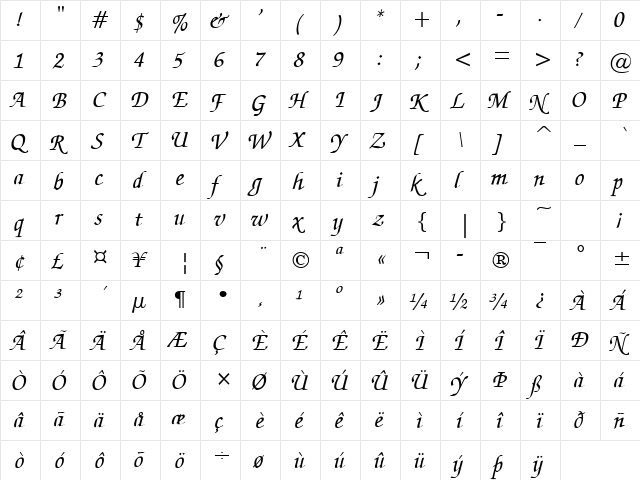
Exchequer Script Regular Font Preview
Exchequer Script Regular
Design Context for Exchequer Script Typeface
Exchequer Script flows with the natural rhythm of handwritten lettering, making it ideal for designs that call for warmth and personal expression.
Font Pairing: Combine Exchequer Script with a simple geometric sans for maximum contrast — the tension between flowing curves and clean structure is a classic typographic pairing.
Pro Tip: Pair Exchequer Script with a clean sans-serif for supporting text. The contrast between fluid script and geometric structure creates an elegant typographic hierarchy.